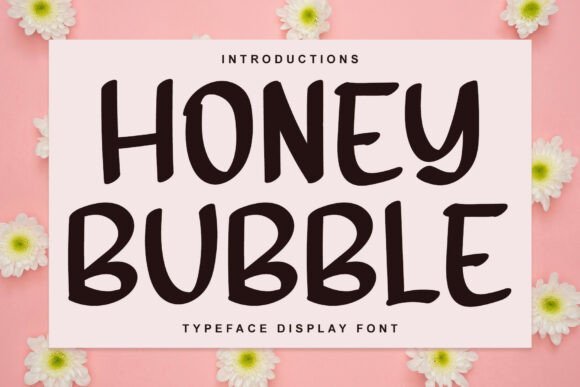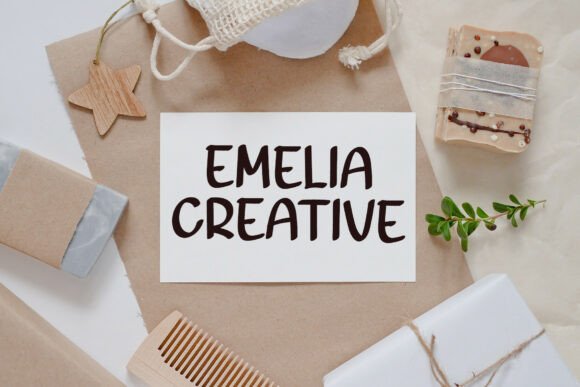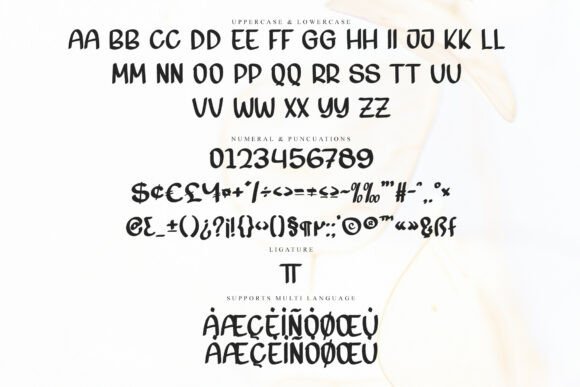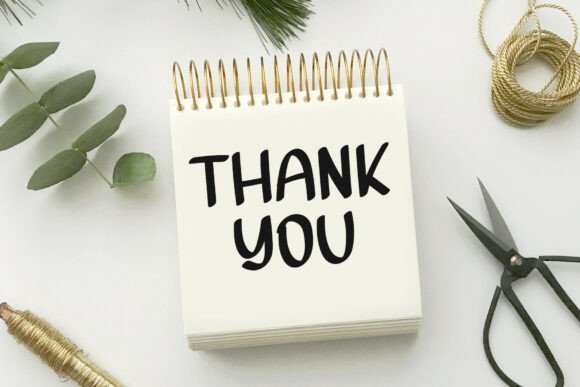
The Font that Captivates: Unveiling the Magic of Honey Bubble Font
Have you ever stared at a blank canvas, feeling the weight of a creative project looming over you? You know that moment when everything seems to be missing, and all you need is that one element to bring it all together? For designers, this is a familiar feeling, and it’s where the Honey Bubble Font comes in – a game-changing display font that adds a touch of magic to any design.
With its unique letterforms and a dash of mystery, the Honey Bubble Font is the perfect tool for designers looking to add a sense of wonder and sophistication to their projects. Whether you’re aiming for a mystical, modern, or elegant look, this captivating font is sure to enchant and inspire. As a valuable addition to any design toolkit, the Honey Bubble Font is a must-have for anyone looking to take their creative projects to the next level.
Honey Bubble Font Key Features
- Font Family: Honey Bubble is a unique, handwritten font family designed to add a touch of whimsy to any design project.
- Unique Characteristics: This font features an eclectic mix of rounded and pointed shapes, creating a playful, hand-drawn feel that’s perfect for creative projects.
Honey Bubble Font Review
I recently had the chance to work with the Honey Bubble font, and I must say, it’s a sweet addition to any design project ✨. Here are some of the things that stood out to me:
- Cute and playful vibe: Honey Bubble is perfect for projects that need a touch of whimsy and fun. The font’s bubbly design is sure to put a smile on your users’ faces.
- Good for titles and headings: The font’s larger sizes look great, making it perfect for titles, headings, and other larger text elements.
- Works well with bolding and italicizing: The font’s bold and italic versions add depth and emphasis to your text, making it more engaging and readable.
However, there are a few limitations to keep in mind ⚠️:
- Not ideal for body text: While Honey Bubble looks great in larger sizes, it can be a bit difficult to read in smaller sizes, making it less suitable for body text.
- May not be suitable for formal projects: The font’s playful design may not be the best fit for formal or professional projects, where a more serious tone is required.
Overall, I think Honey Bubble is a great font for projects that need a touch of fun and whimsy. While it may not be suitable for all types of projects, it’s definitely a valuable addition to any designer’s toolkit ✨.
Tips for Getting the Most Out of Honey Bubble Font
1. Use Honey Bubble Font for titles and headings to add a touch of whimsy to your design.
2. Experiment with different font sizes and colors to create visual interest.
3. Pair Honey Bubble Font with other playful fonts for a unique and eye-catching look.
Honey Bubble Font is perfect for:
1. Children’s book illustrations and design.
2. Social media graphics and ads.
3. Party invitations and decorations.